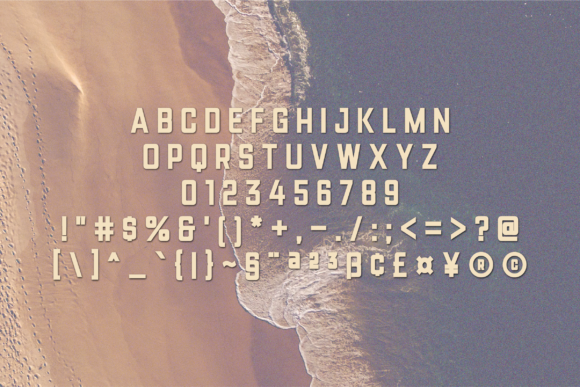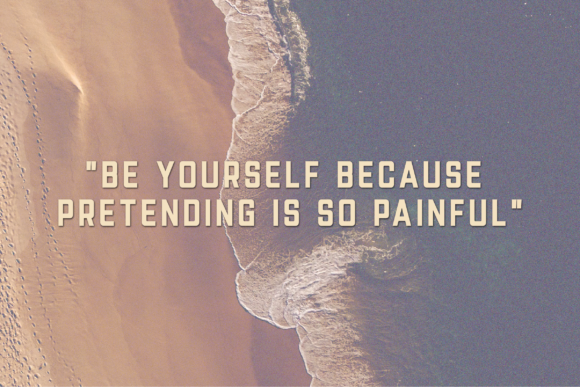
Introduction to Roblock Font
As a designer, there’s nothing quite like the thrill of discovering a new font that elevates your creative project to the next level. For me, that moment came when I stumbled upon the Roblock Font – an all-caps sans serif that’s quickly become my go-to choice for high-quality designs.
What sets Roblock Font apart is its versatility and ability to look great in just about any context. Whether you’re working on a logo, branding, or web heading, its smooth and clean lines, combined with just the right amount of contrast, make it a valuable design resource. Plus, its transparent background allows for seamless integration with any background, giving you complete creative control.
Key Features of Roblock Font
- High-quality vector design resource, ideal for creative projects
- Transparent background, making it easy to customize and integrate
- Includes a range of font sizes and styles, from 12pt to 72pt
- Resolution-independent, ensuring crisp and clear text at any size
- Perfect for use in graphic design, digital art, and other creative applications
Honest Review: Roblock Font
As a designer, I’m always on the lookout for high-quality design resources to elevate my creative projects. Recently, I had the chance to explore the Roblock Font, and I’m excited to share my honest review with you.
- The Roblock Font offers a unique and modern aesthetic that’s perfect for contemporary designs.
- The font is highly customizable, making it a great addition to any creative project.
- The transparent background allows for seamless integration with other design elements.
- The font may not be suitable for all design styles, particularly those with more traditional or classic themes.
- The font’s customization options can be overwhelming for designers who are new to font editing.
Overall, I’m impressed with the Roblock Font’s potential to enhance my designs. While it may have some limitations, its unique aesthetic and customization options make it a valuable addition to my design resource library. I’d definitely recommend it to designers looking for a modern and versatile font.
Experiment with different font sizes and colors to create a visually appealing design. Use the Roblock Font in combination with other design elements, such as images and shapes, to add depth and interest to your project.
The Roblock Font is suitable for a variety of creative projects, including logos, branding materials, and marketing collateral. Its transparent background feature makes it ideal for use in digital designs, such as social media graphics and website content.